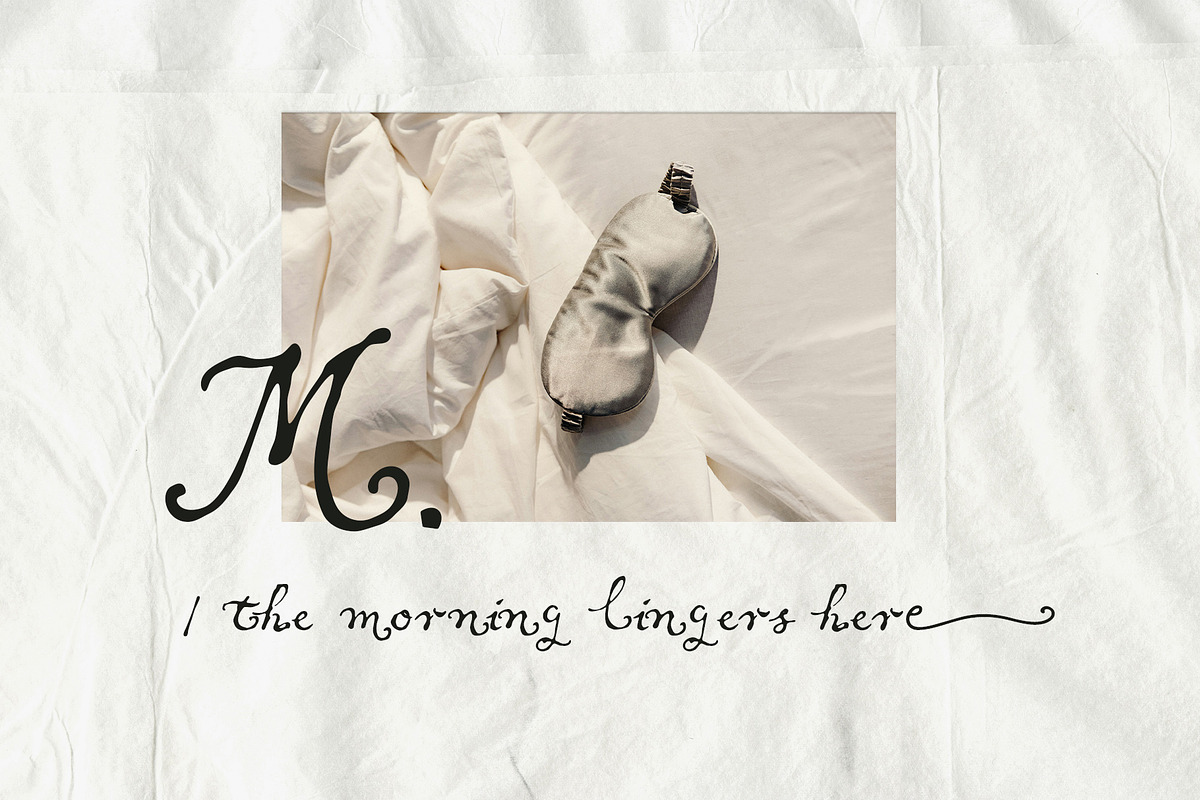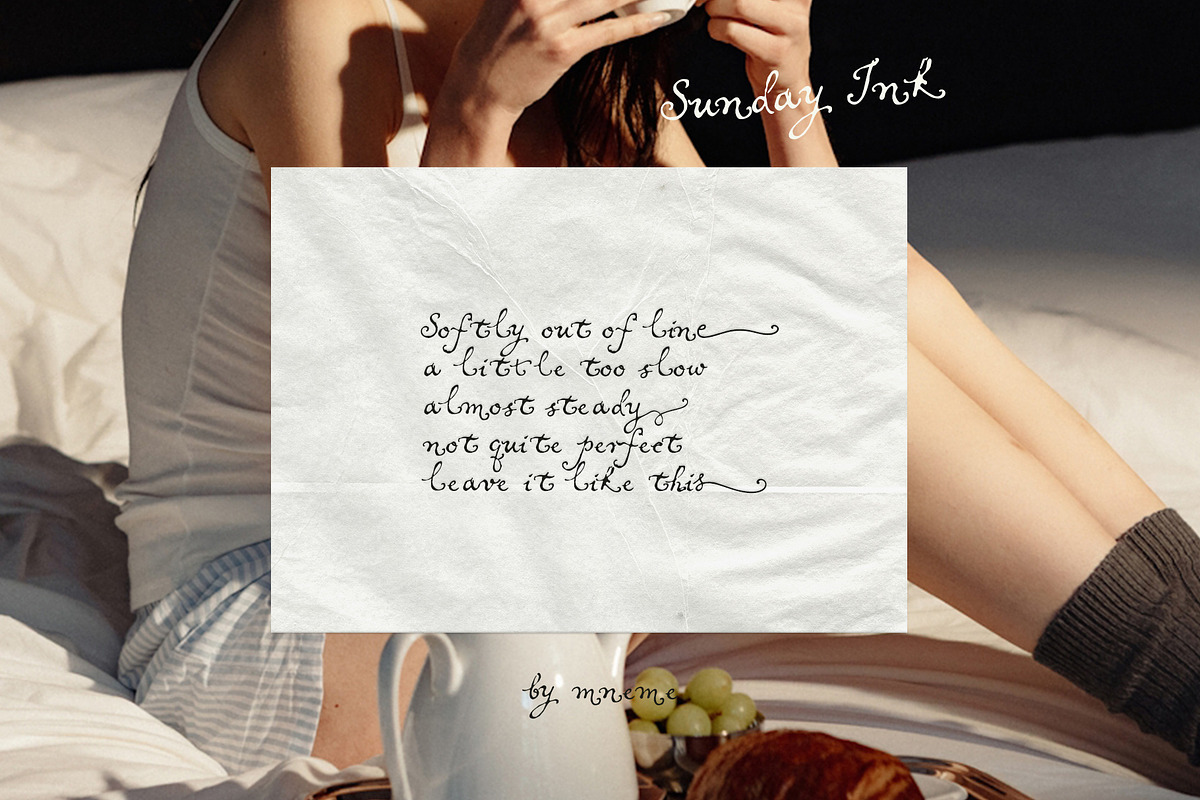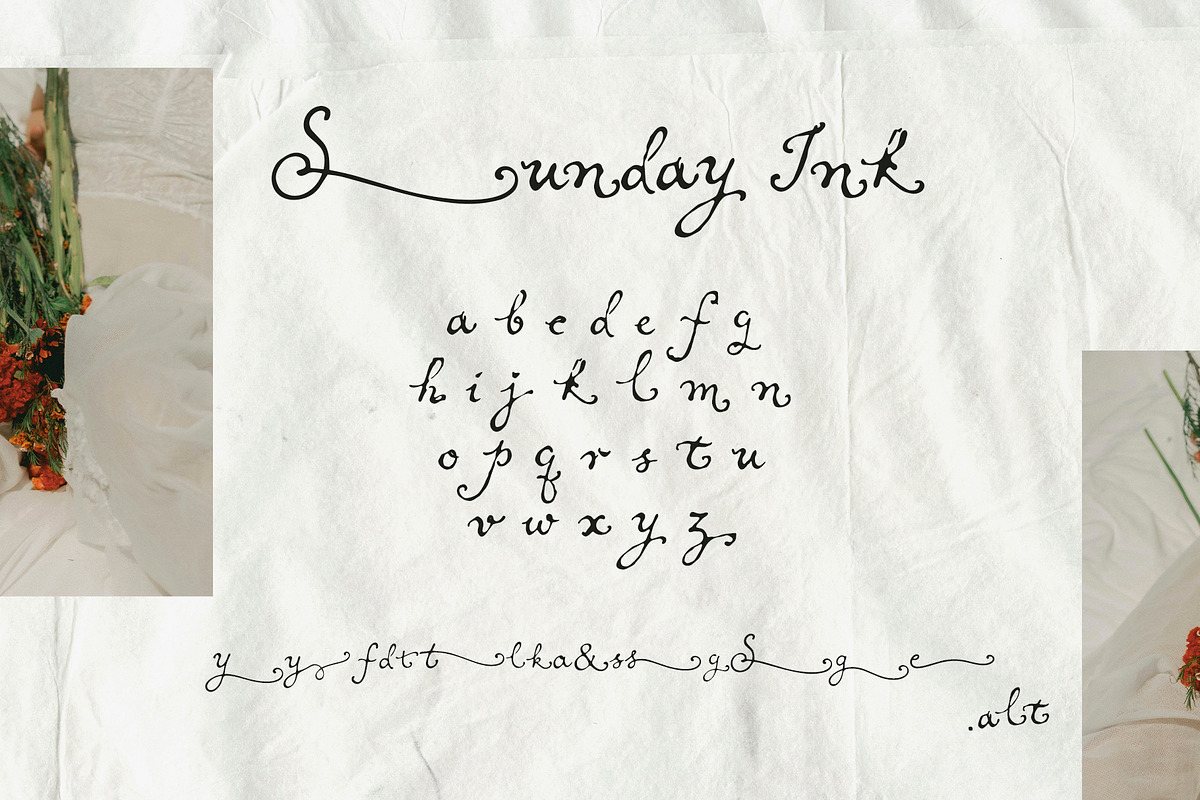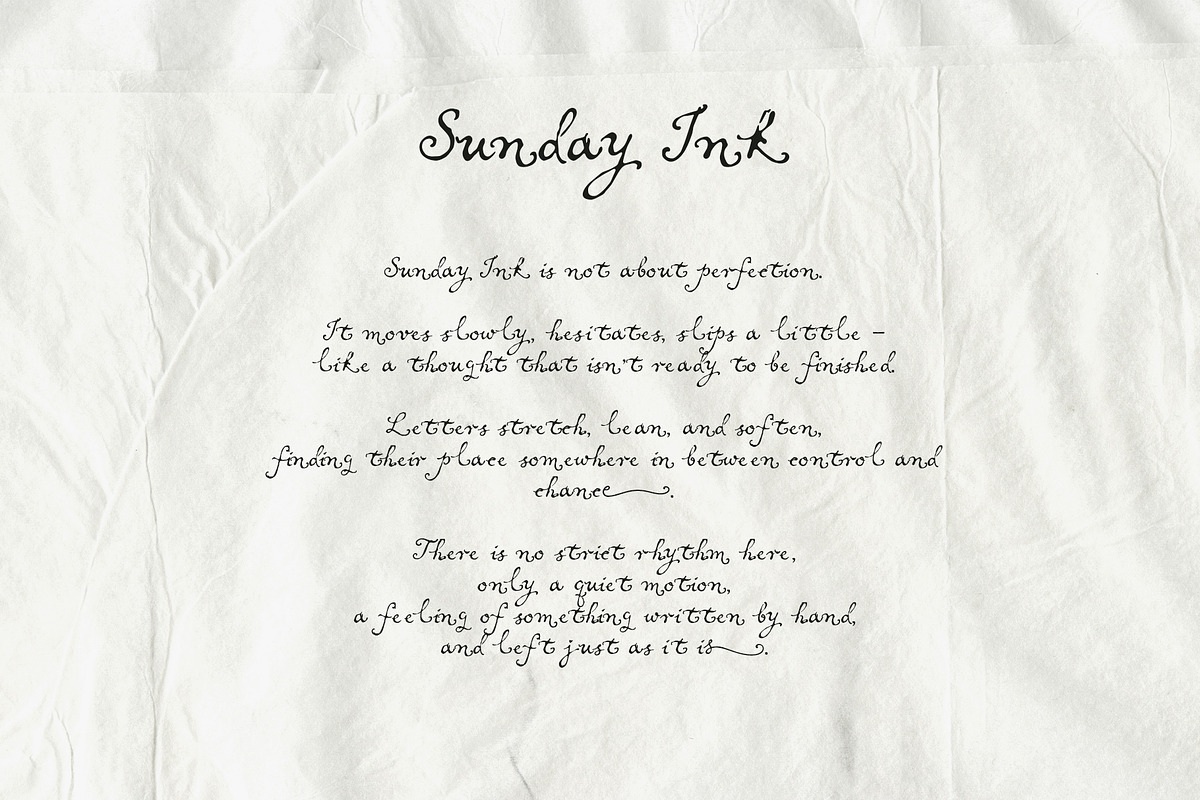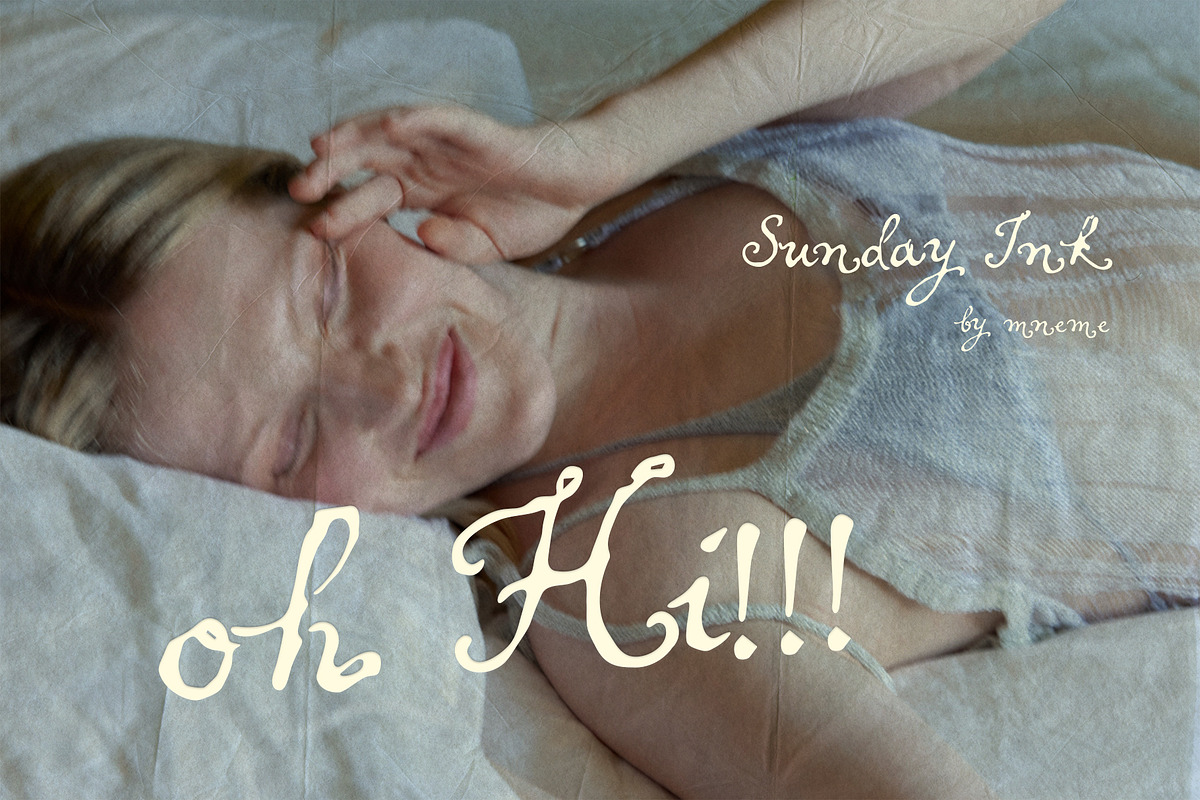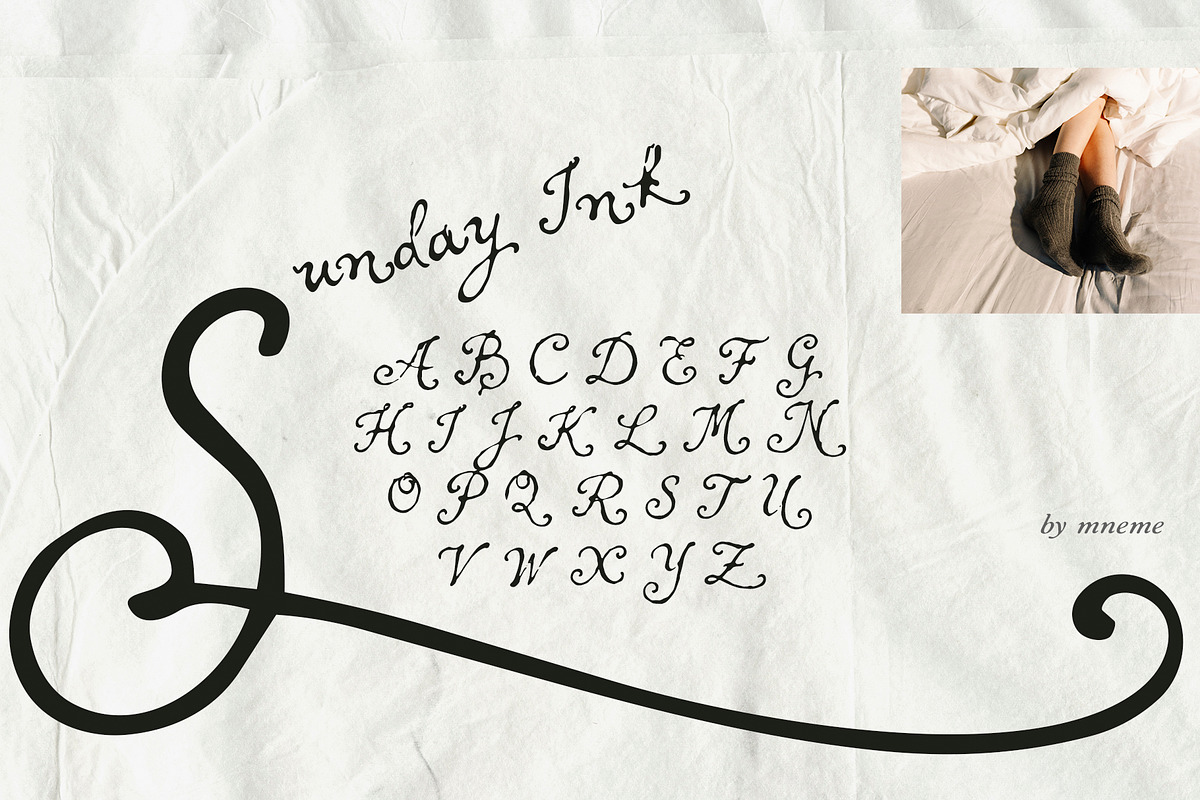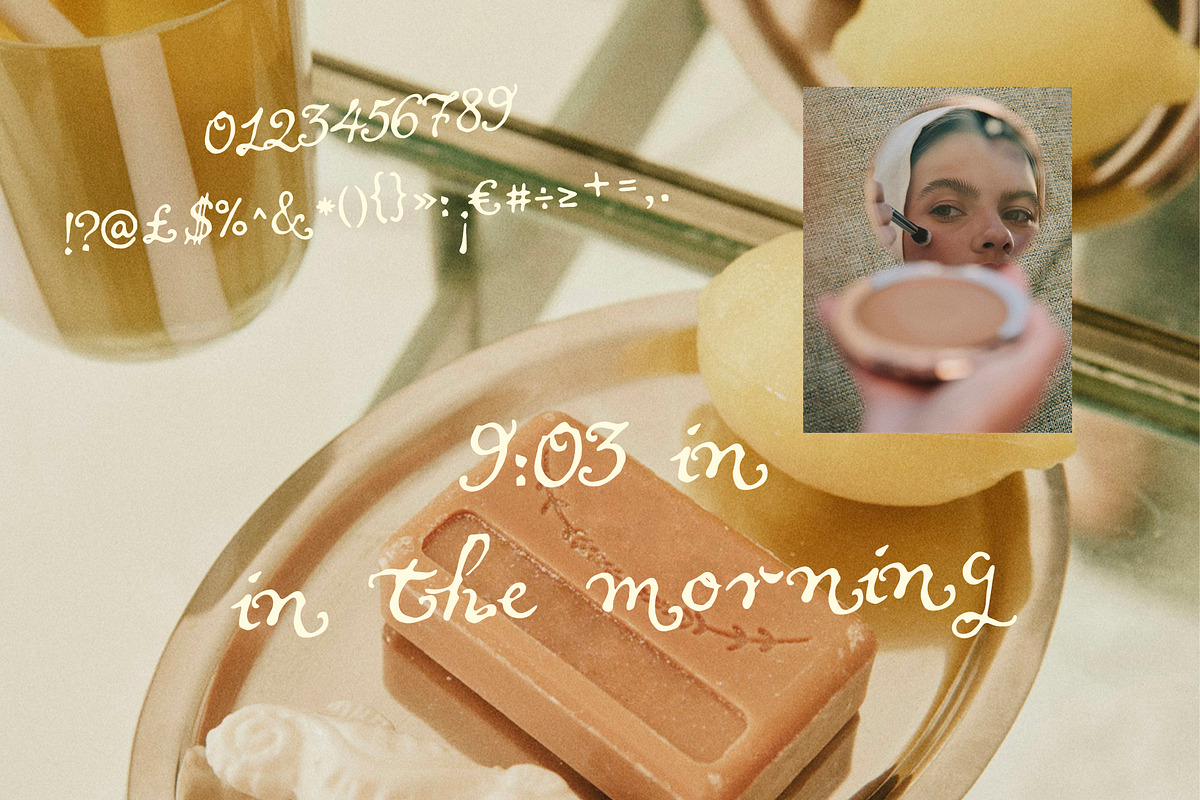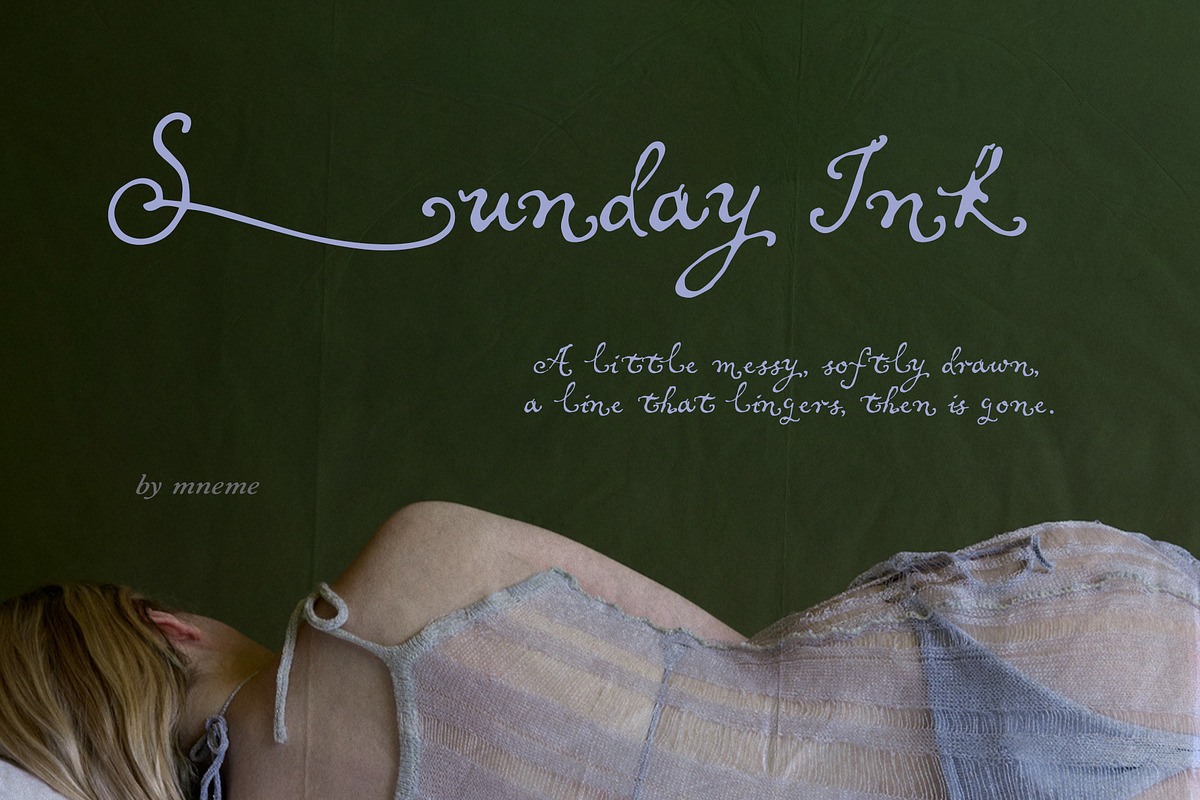
Sunday Ink - Soft Handwritten Script
Sunday Ink is a soft, slightly imperfect handwritten script — the kind that feels like it was written slowly, without trying to be precise.
Letters lean, stretch, and soften into each other, creating a natural rhythm that feels personal and alive. Some lines wander a little, some linger longer than expected — and that’s exactly the point.
This font was designed to keep the feeling of real handwriting: unsteady in the right places, calm in others, never too polished.
Sunday Ink works beautifully for branding, wedding invitations, editorial layouts, social media, and any project that needs a quiet, human touch.
Uppercase & lowercase letters
Some alternates & swashes (for a more expressive look)